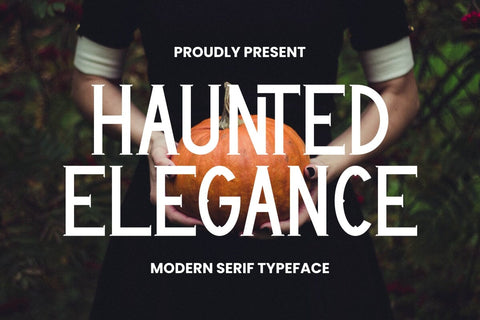
Haunted Elegance - Modern Serif Typeface
Introducing Haunted Elegance - Modern Serif Typeface
Unveil the timeless allure of "Haunted Elegance," a contemporary serif typeface that seamlessly merges sophistication with an alluring mystique. Crafted with precision and a keen eye for detail, this font will add a touch of refined charm to your design projects.
Key Features:
🔷 Sleek & Contemporary: Haunted Elegance strikes the perfect balance between modern design and classic serif elements, making it versatile for various creative endeavors.
🔷 Versatile Usage: Ideal for branding, editorial projects, wedding invitations, and more. Elevate your designs effortlessly.
🔷 Easy to Customize: Haunted Elegance provides an elegant canvas for your creative expression. Adjust kerning and letter spacing to suit your unique vision.
Elevate your designs to new heights with "Haunted Elegance." Whether you're a seasoned designer or just embarking on your creative journey, this font is your passport to timeless sophistication.